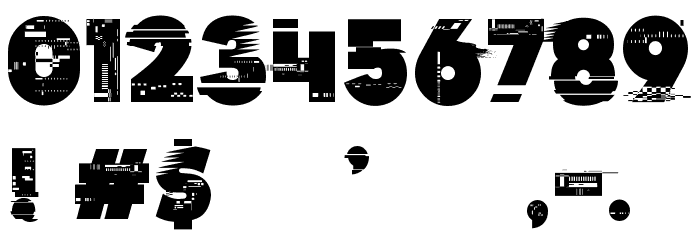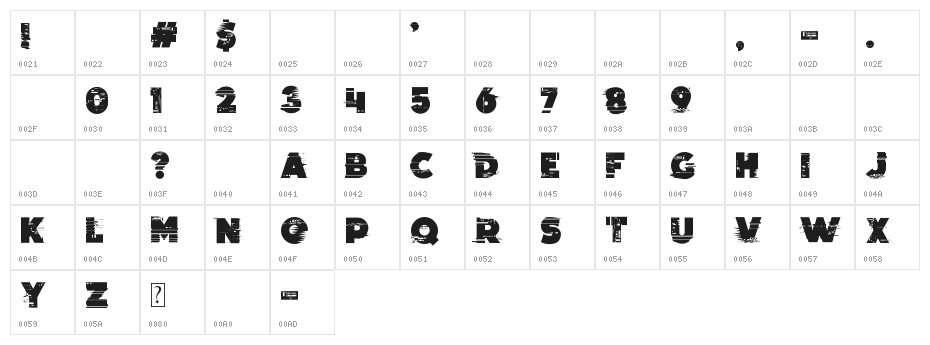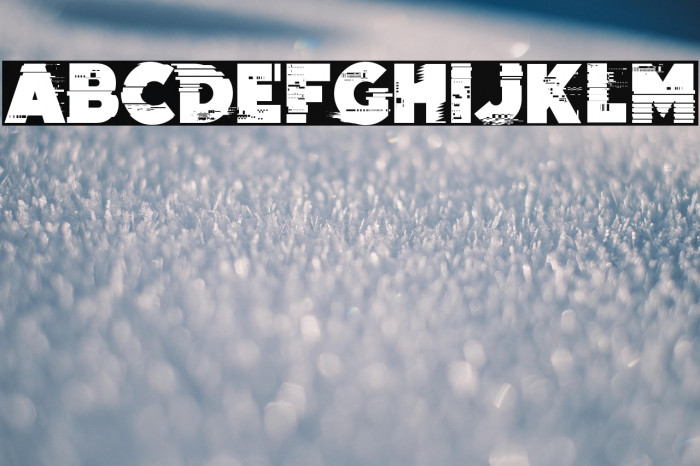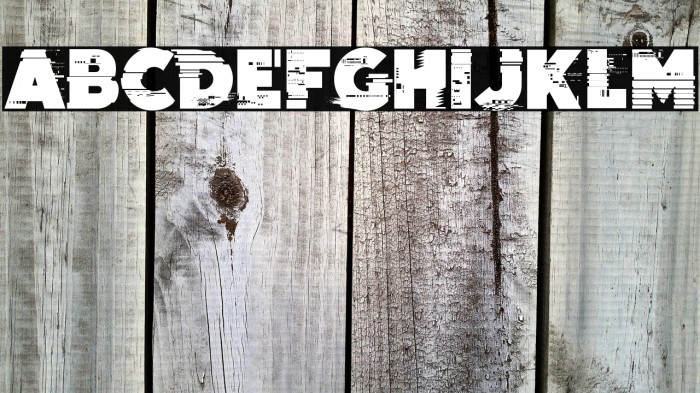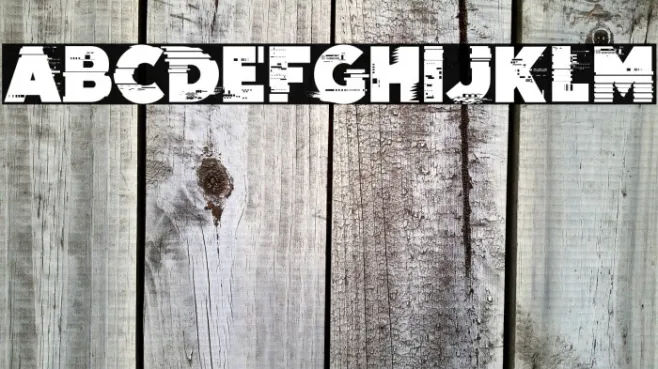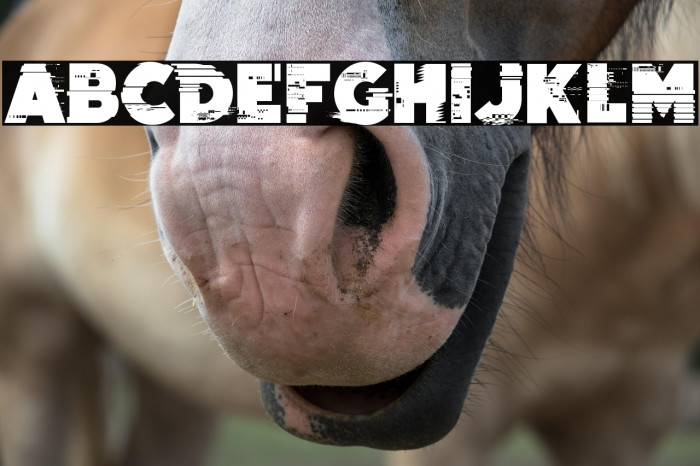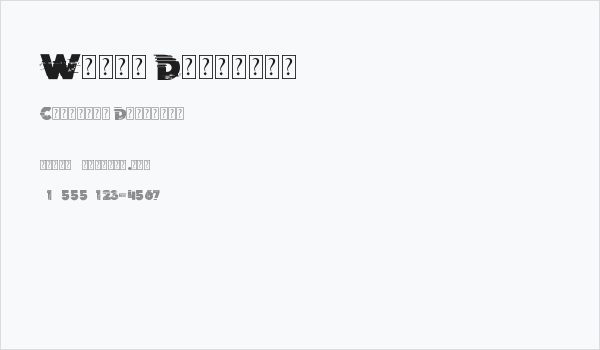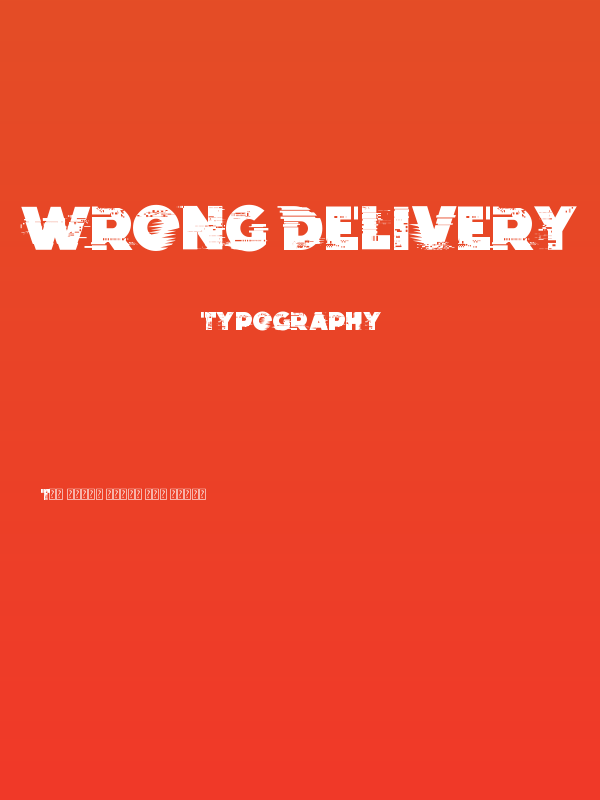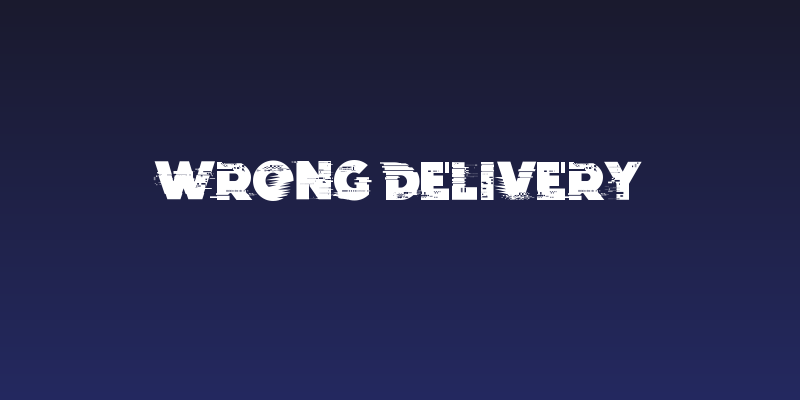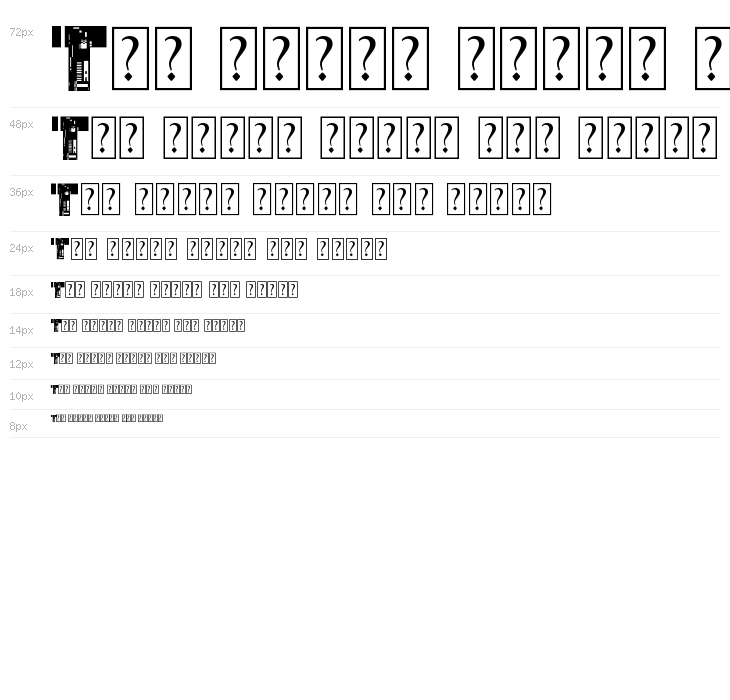
Wrong Delivery Font
Wrong Delivery Description
This font features a bold, distressed style with a unique glitch effect that disrupts the smoothness of each character. The uppercase and lowercase letters, as well as numbers and special characters, are all designed with a fragmented appearance, giving the impression of digital interference or static. The boldness of the characters is contrasted by the irregular, broken lines that run horizontally across each letter, creating a visually striking and modern aesthetic. This font is ideal for projects that require a contemporary, edgy look, such as digital art, music album covers, or tech-related branding.
| Proposed Projects | Digital art, music album covers, tech branding, posters, and event flyers. |